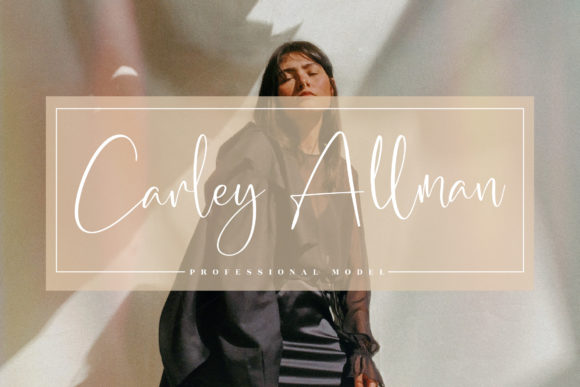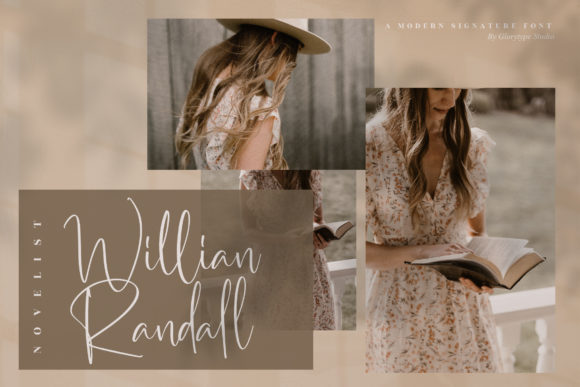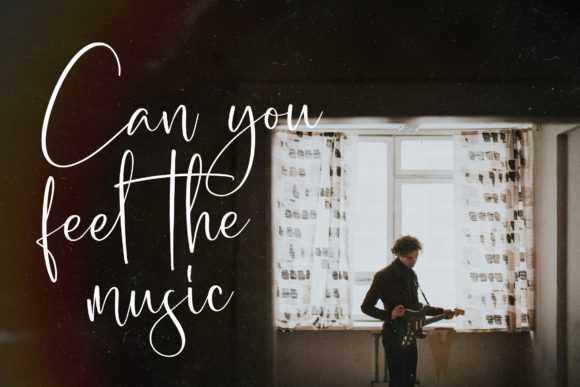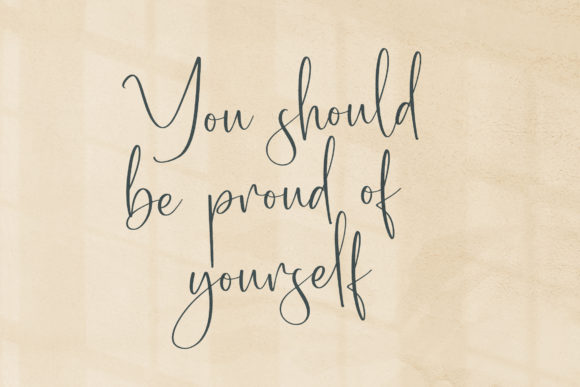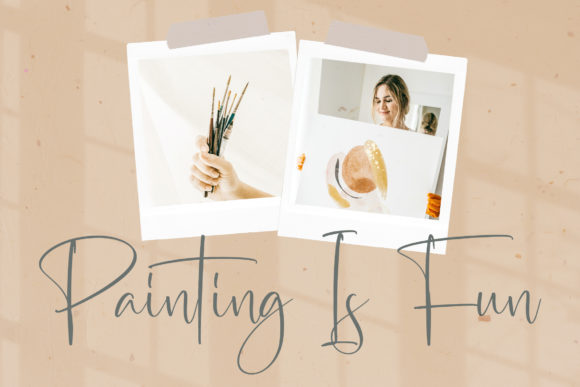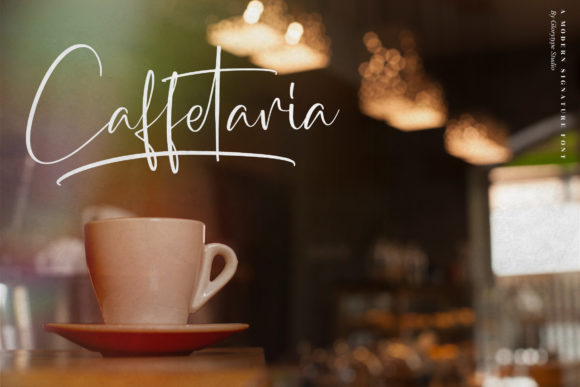
Have you ever sat down with a blank sheet of paper, staring at a blank space waiting for inspiration to strike? It’s a moment every designer knows and loves. The rush of ideas, the thrill of creating something new, and the satisfaction of bringing a concept to life. For many designers, the right font can be the key to unlocking that creative spark. That’s where the Georgia Western Font comes in – a modern signature font designed to elevate any project from ordinary to extraordinary.
Whether you’re working on a logo, branding project, or product packaging, the Georgia Western Font is the perfect choice. Its elegant script style adds a touch of sophistication to any design, making it an invaluable tool for designers looking to create memorable and impactful projects.
Georgia Western Font Key Features
- Font Family: Georgia Western Font is a custom-designed font, but it is similar to Georgia font family.
- Unique Characteristics: Georgia Western Font is designed to mimic the traditional calligraphy style, with elegant and cursive script features.
Georgia Western Font Review
Overall, I think the Georgia Western font is a great addition to any design project. It’s ✨ elegant, ✨ sophisticated, and ✨ easy to read. I’ve used it for a variety of applications, from brochures to business cards, and it always looks polished and professional.
- ✨ Elegant and sophisticated feel
- ✨ Highly legible, even at small font sizes
- ✨ Works well for both body text and headings
- ✨ Compatible with a wide range of devices and platforms
- ⚠️ Limited flexibility – it’s not ideal for use in informal or playful designs
- ⚠️ Not as versatile as some other fonts, with limited weight and style options
- ⚠️ May not be the best choice for digital interfaces or interactive designs
While the Georgia Western font may have some limitations, I think it’s a solid choice for any design project that requires a professional, elegant look. With a little creativity and experimentation, you can get the most out of this versatile font.
Practical Application Guide for Georgia Western Font
The Georgia Western Font is a unique and elegant font that can add a touch of sophistication to your designs. To get the most out of it, consider the following tips:
– Use it sparingly to create a sense of contrast and visual interest.
– Pair it with other fonts to create a harmonious design.
– Experiment with different font sizes and styles to find the perfect balance.
The Georgia Western Font is well-suited for:
– Formal invitations and announcements.
– Academic and professional presentations.
– Branding and marketing materials.
– Any design where a touch of elegance and sophistication is desired.
Alternatives to Georgia Western Font
Playfair Display is a luxurious serif font with a classic feel. It’s ideal for headings, titles, and any design that requires elegance and sophistication. When to use: luxury brands, high-end products, and any design that needs a touch of opulence.
Comparison to Georgia Western Font: While Georgia Western Font is a clear and readable font, Playfair Display is more decorative and ornate. It’s better suited for visual emphasis and adding a touch of luxury to a design.
Merriweather is a classic serif font with a strong, timeless feel. It’s suitable for body text, headings, and any design that requires a sense of tradition and stability. When to use: corporate designs, academic papers, and any design that needs a sense of authority.